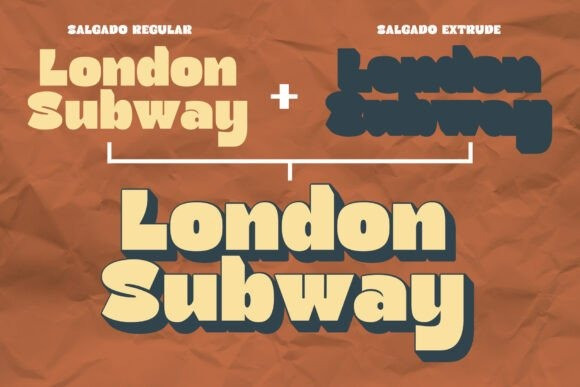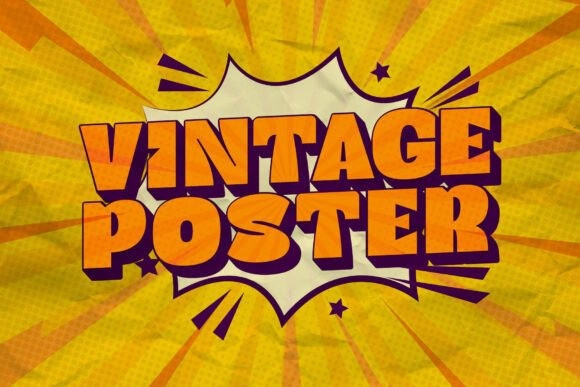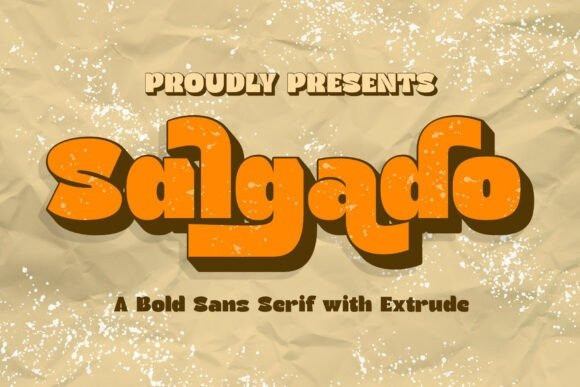
Salgado Font
Salgado Font a stunning modern bold sans serif font that exudes confidence and style. With its clean lines and dynamic extrude effect, Salgado brings a contemporary flair to any design project. Perfectly suited for posters, T-shirt designs, branding, and more, this font effortlessly elevates your visuals, making them stand out from the crowd.
Salgado offers an extensive set of alternate characters, providing you with endless possibilities to customize your typography and achieve a unique look. Additionally, its multilingual symbols ensure that your designs can communicate with a global audience, breaking language barriers and broadening your creative horizons.
Whether you’re aiming for a bold and eye-catching headline or a sleek and modern logo, Salgado delivers versatility and impact. Its strong geometric shapes and balanced proportions make it a reliable choice for a wide range of design purposes, ensuring your message is conveyed with clarity and precision.
Embrace the power of Salgado and transform your creative vision into reality. Its bold presence and modern aesthetic make it the perfect choice for designers seeking to leave a lasting impression. Elevate your projects with Salgado and experience the difference a professionally crafted font can make.